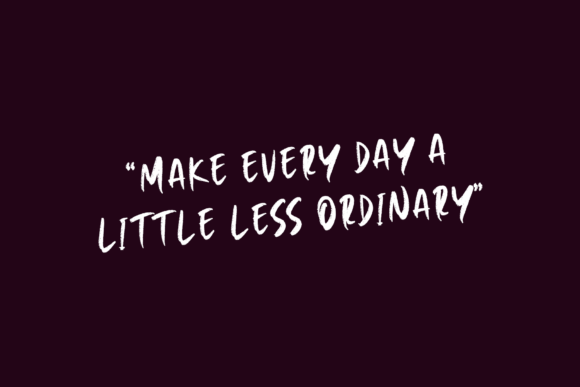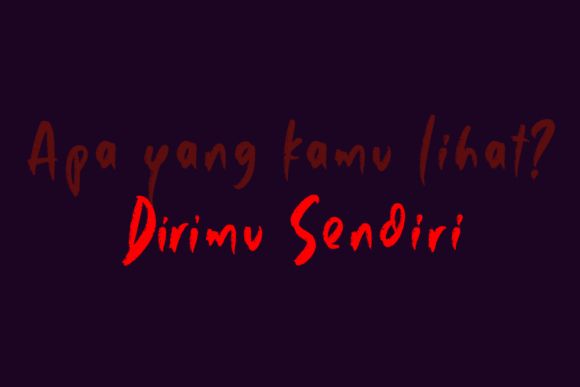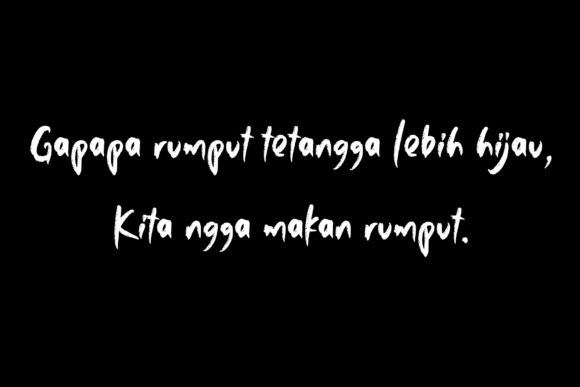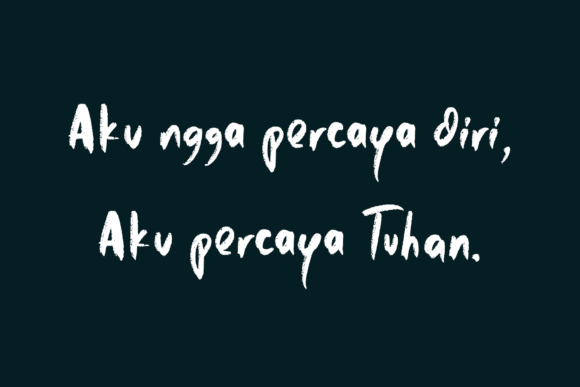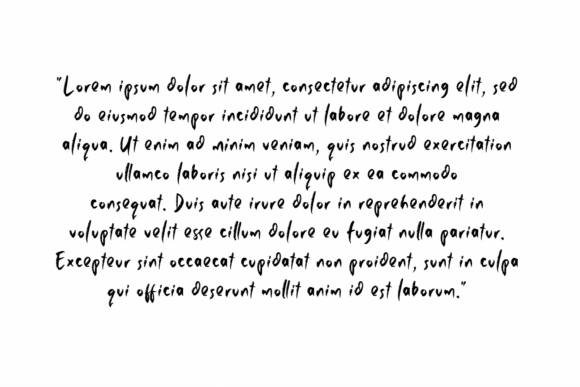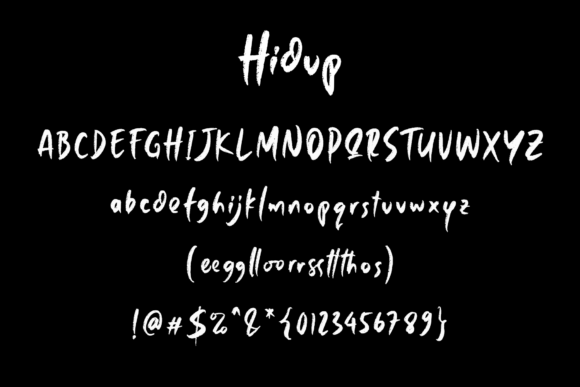
Enter Hidup Font, a stunning display font that’s sure to take your creative projects to the next level. With its cool, rough texture, Hidup Font is the perfect addition to any design library. Whether you’re working on a high-quality logo, a free download project, or a design that requires a transparent background, Hidup Font is a valuable resource that’s sure to impress.
In this article, we’ll delve into the world of Hidup Font and explore its features, benefits, and uses. From its PUA encoded glyphs to its versatility, we’ll show you why Hidup Font is a must-have for any designer looking to add a unique touch to their work.
Key Features of Hidup Font
- High-quality font design, perfect for creative projects and design resources.
- Designed with a transparent background, allowing for easy customization and layering in design projects.
- Unique and modern design aesthetic, ideal for modern branding, logos, and creative projects.
Honest Review: Hidup Font
I recently came across the Hidup Font, and I must say it’s been a game-changer for my design projects. The high quality of this font has allowed me to take my creative work to the next level.
- ✨ Unique design: The Hidup Font has a distinct and modern design that sets it apart from other fonts in the market.
- ✨ Transparent background: The font’s transparent background makes it easy to customize and integrate with any design resource.
However, I did encounter a few limitations.
- ⚠️ Limited font sizes: The font only comes in a few sizes, which can be limiting for certain design projects.
- ⚠️ Not ideal for body text: While the font is perfect for headings, it’s not the most readable for large blocks of body text.
Overall, I’m impressed with the Hidup Font, and I would highly recommend it for design projects that require a modern and unique look. With a little creativity, the limitations of this font can be overcome, making it a valuable resource for designers.
Hidup Font
Hidup Font is a versatile and high-quality design resource perfect for any creative project. With its transparent background, you can easily integrate it into your design without any hassle.
Tips for Getting the Most Out of Hidup Font
For the best results, use Hidup Font in conjunction with a high-quality image or design. Also, experiment with different font sizes and colors to find the perfect combination for your project.
Hidup Font is perfect for various creative projects, including:
- Posters and brochures
With Hidup Font, the possibilities are endless!